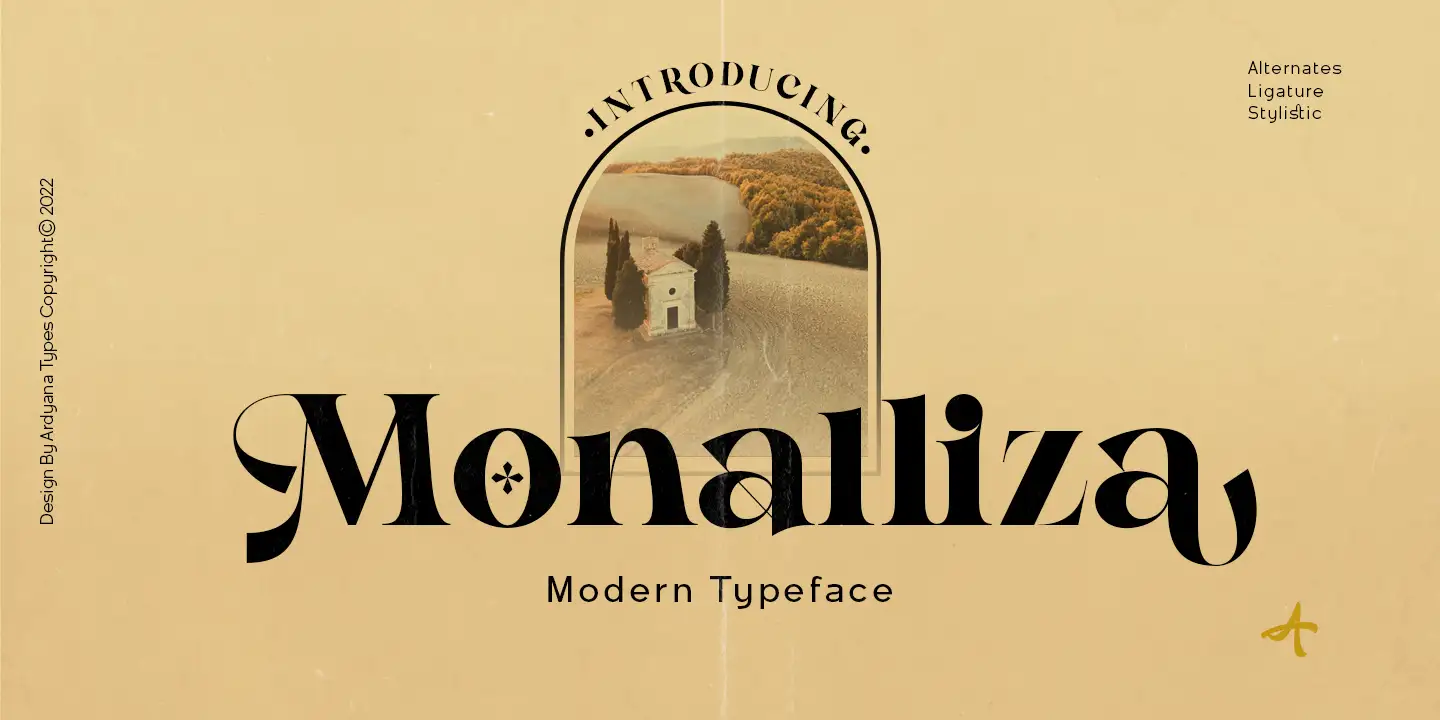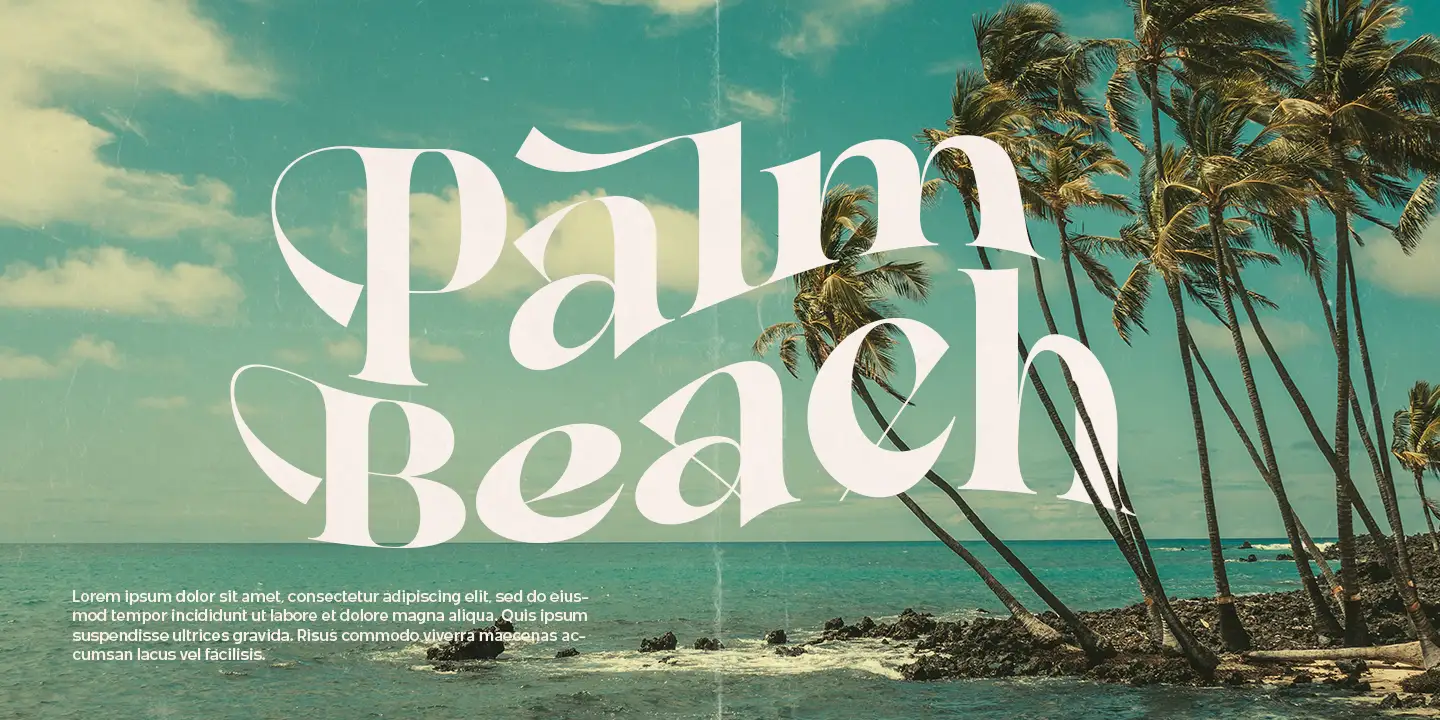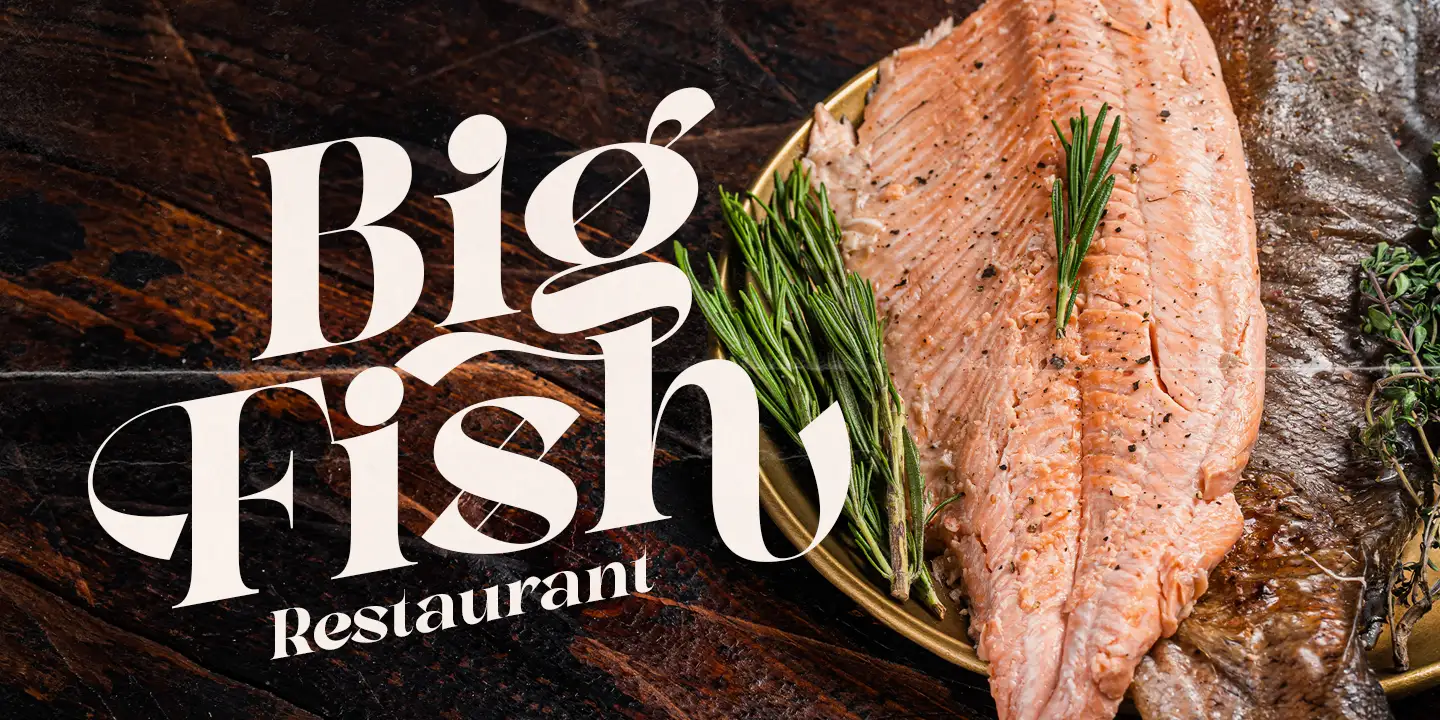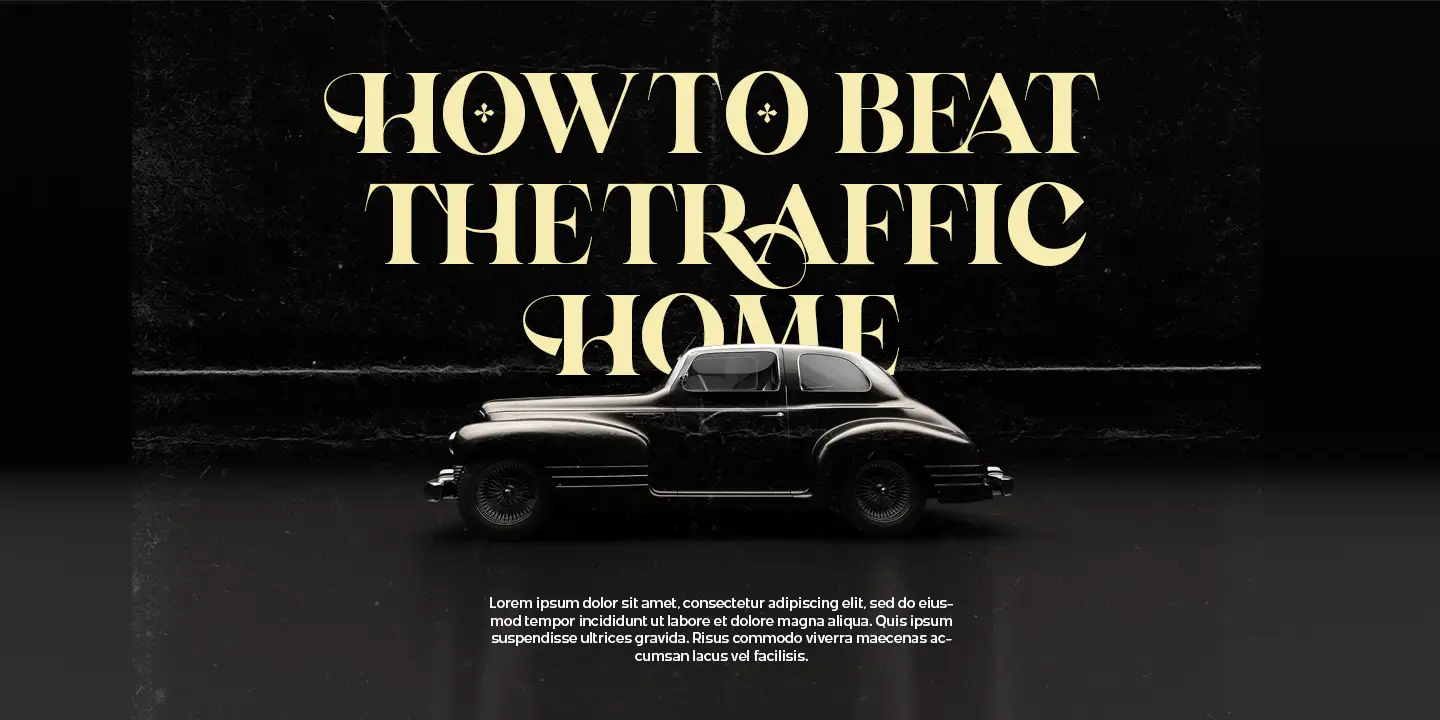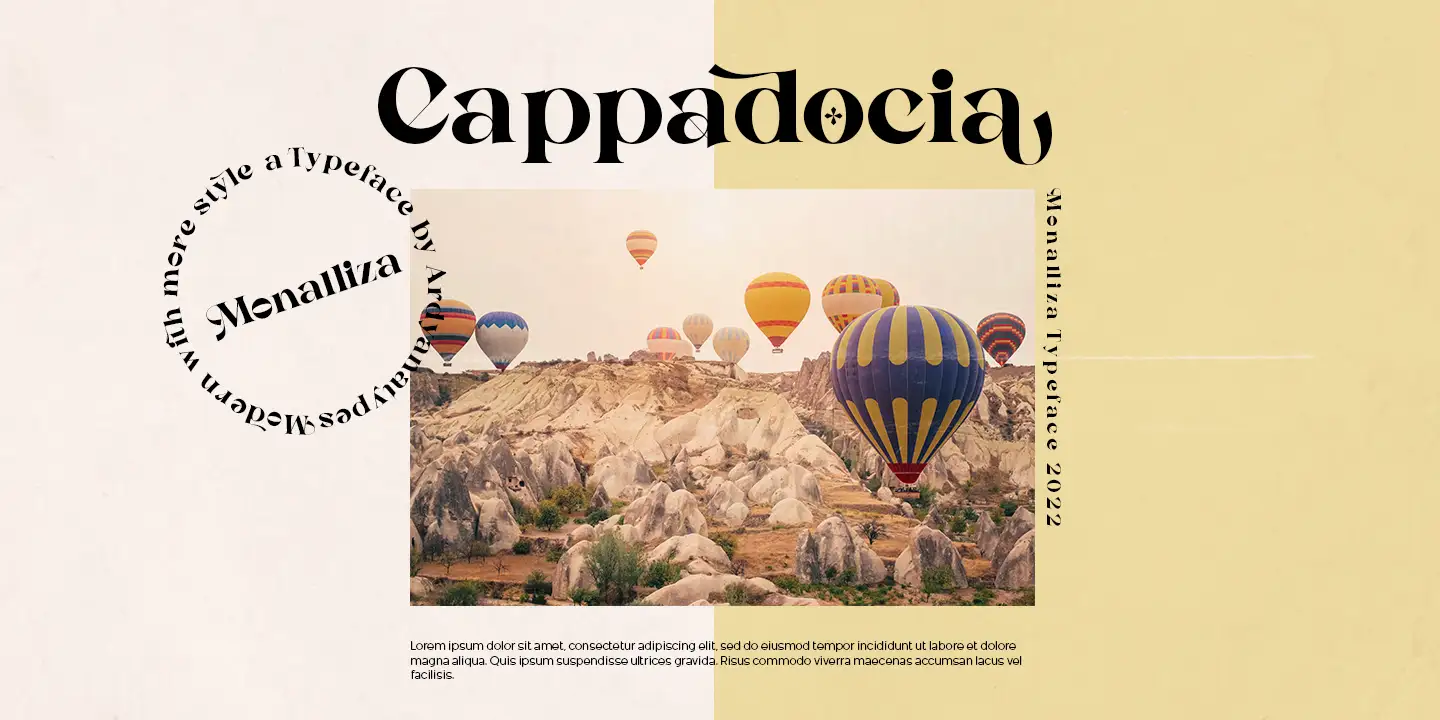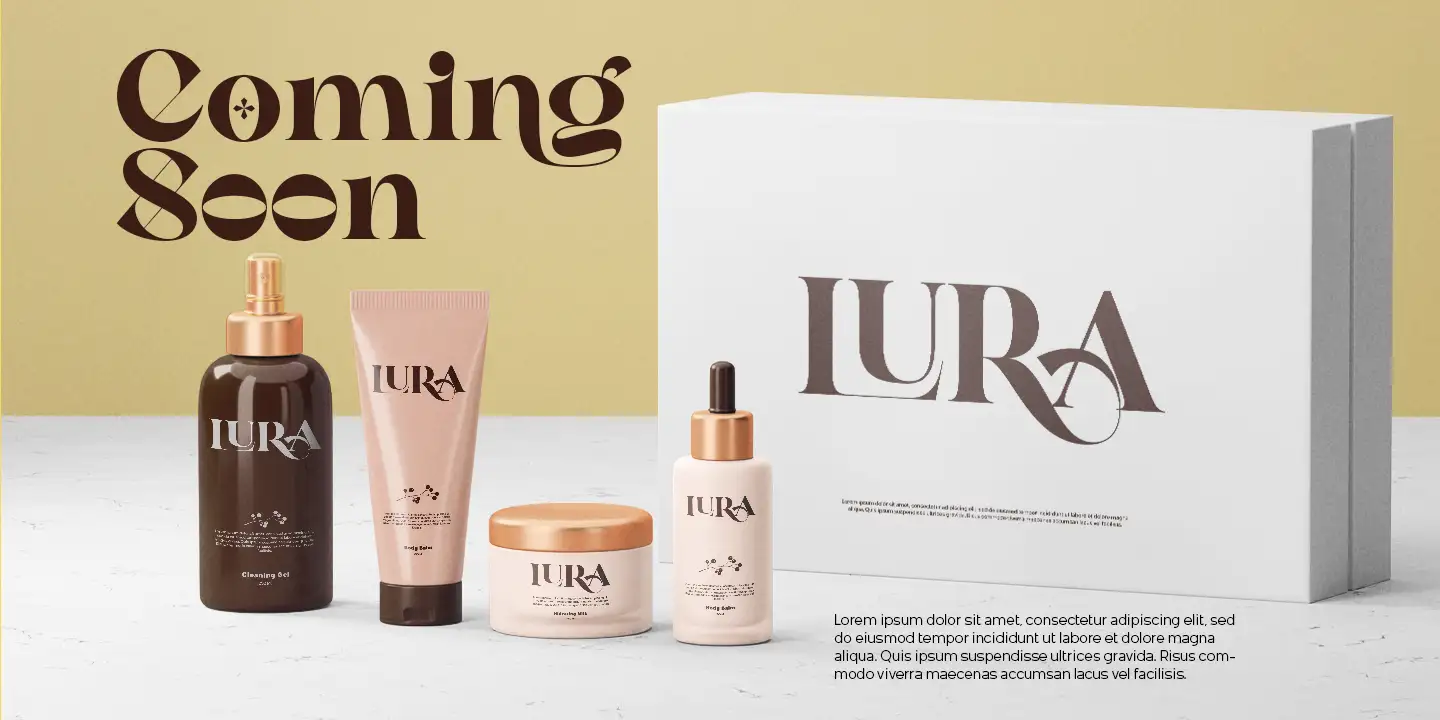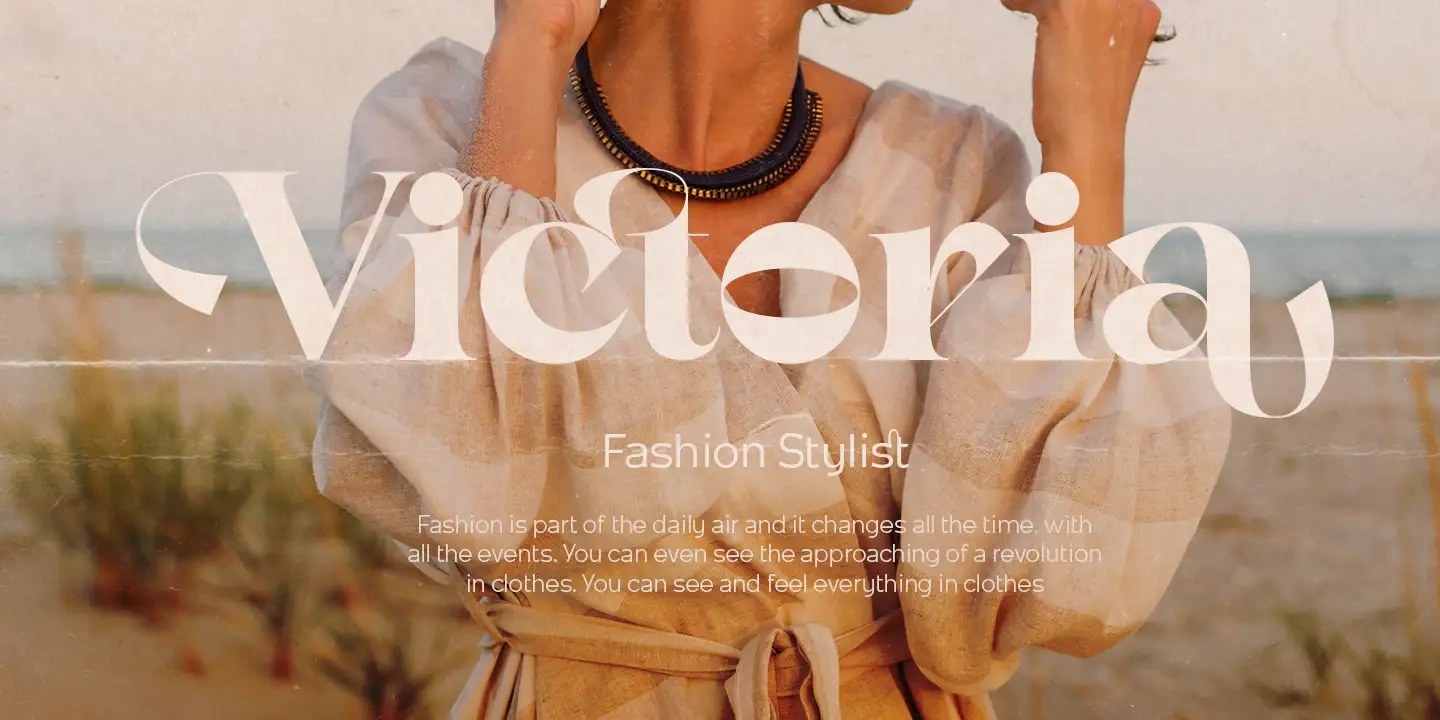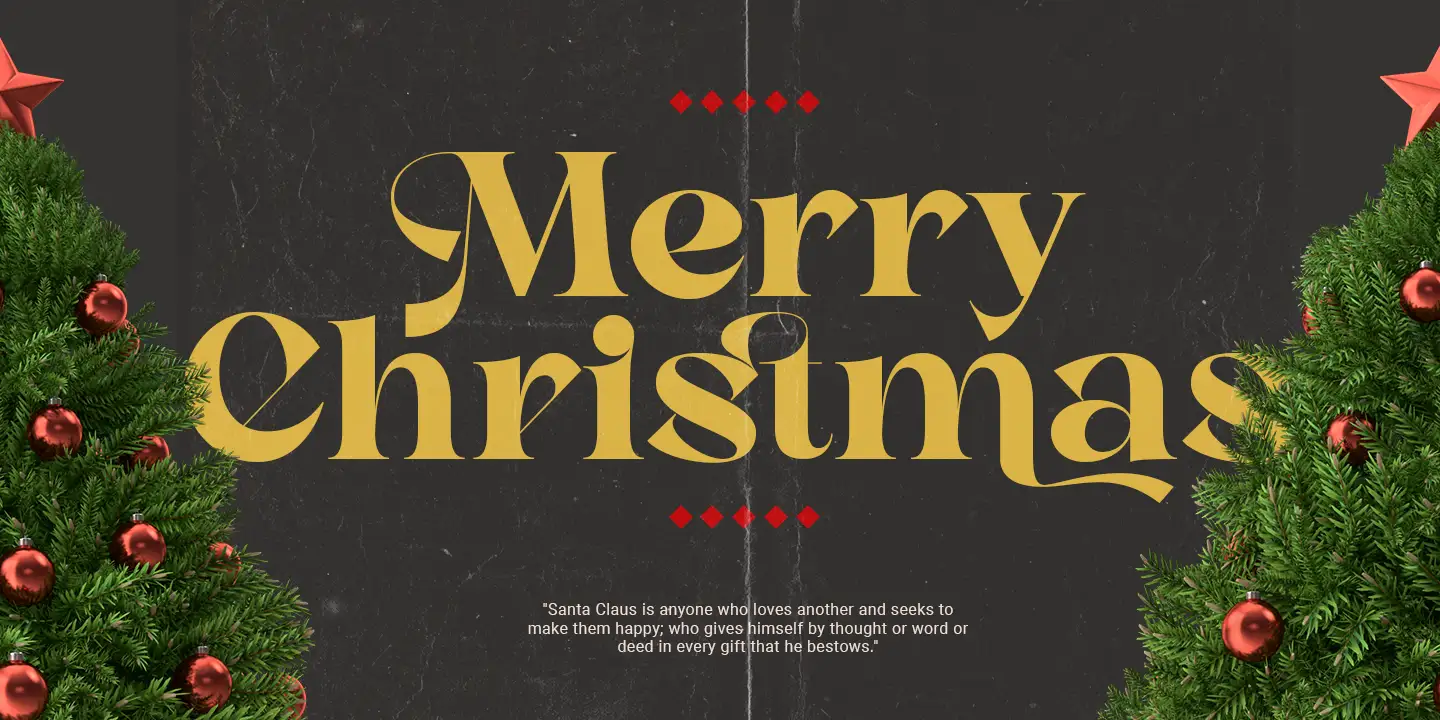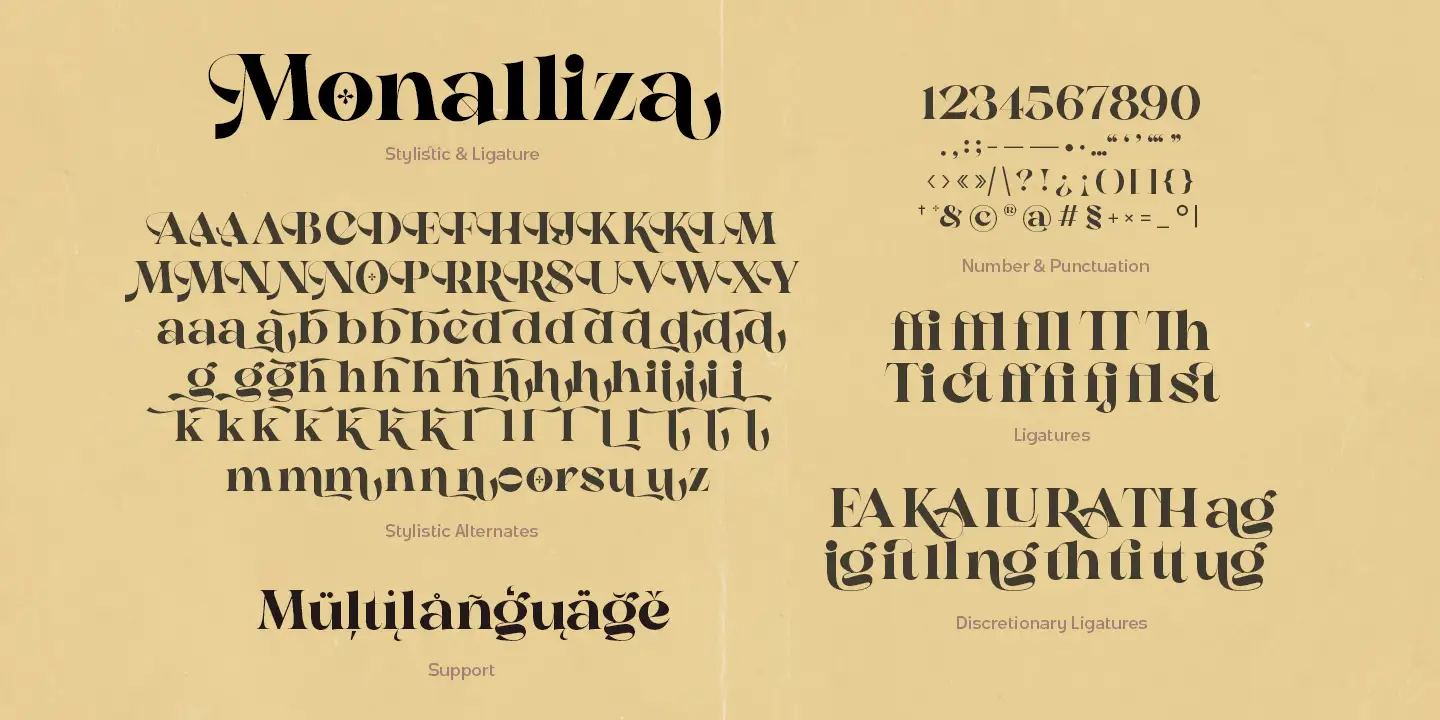
Monalliza
"Monalliza" comes with an aesthetic style, and its serif-type tagline is Vintage and elegant. "Monalliza" is also equipped with the latest professional characteristics that present a sleek and attractive identity for your company or project for business purposes. It goes well with modern serifs and scripts that depict or stand firm as a title and brand representative for an elegant look. "Monalliza" also comes with multiple languages, making any country and language easy to use. It also comes with alternative Ligatures and styles to make your designs more attractive. "Monalliza" is suitable for branding projects and various design purposes such as business cards, name tags, and uniforms as a brand enhancement. Advertisements, posters, invitations, branding, logos, magazines, merchandise, presentations, etc.